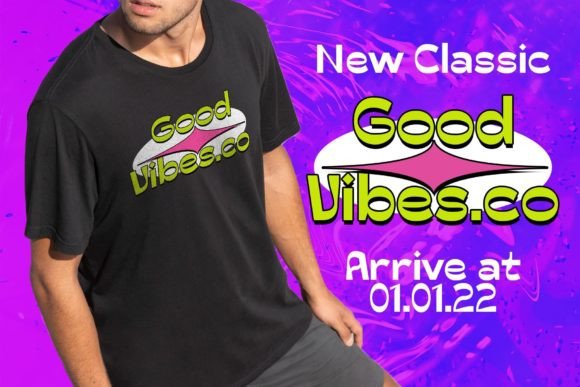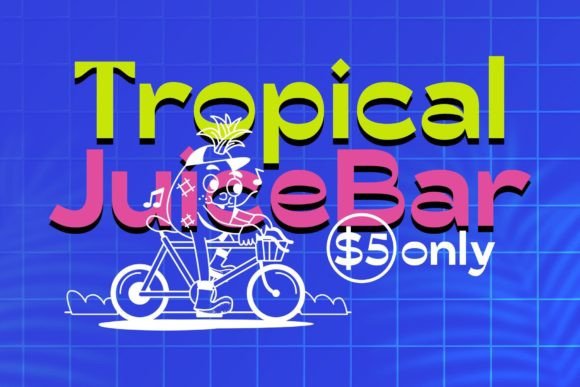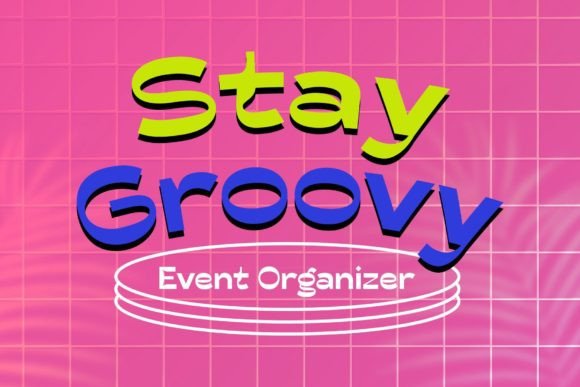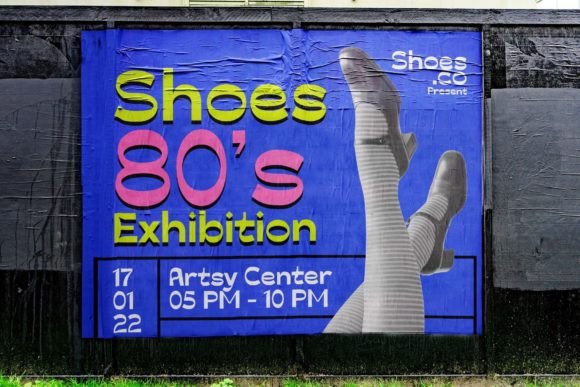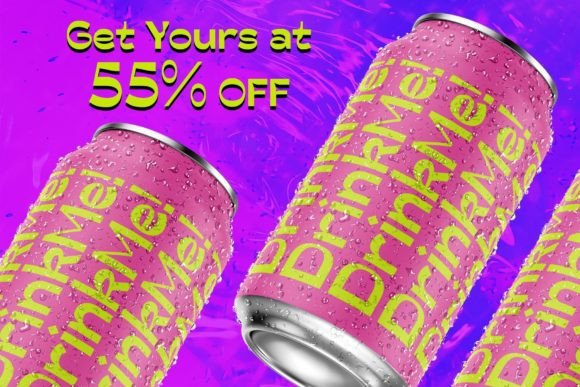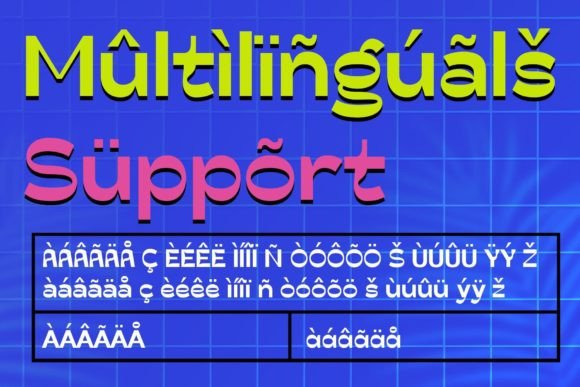
Introducing Float: The Ultimate Sans Serif Psychedelic Font for Designers and Crafters
Are you tired of using the same old fonts in your designs? Look no further! We’re excited to introduce Float, a brand new sans serif psychedelic font that’s inspired by the iconic graphic designs of the 80s. With its bold and eye-catching style, Float is perfect for creating stunning headlines, logos, and graphics that will make your designs stand out from the crowd.
What is Float Font?
Float is a carefully crafted sans serif font that’s designed to bring back the fun and playfulness of 80s graphic design. Its unique and quirky style is characterized by bold lines, vibrant colors, and a dash of psychedelic flair. Whether you’re a designer, crafty DIY enthusiast, or simply someone who loves to create, Float is the perfect font for you.
Key Features of Float Font
- Psychedelic style: Float’s psychedelic style is inspired by the iconic graphic designs of the 80s, making it perfect for creating bold and eye-catching designs.
- Sans serif: Float’s clean and modern sans serif design makes it easy to read and versatile for use in a variety of design applications.
- Bold and vibrant: Float’s bold lines and vibrant colors make it perfect for creating stunning headlines, logos, and graphics that will grab attention.
What Can I Use Float Font For?
Float is a versatile font that can be used for a wide range of design applications, including:
- Graphic design: Float is perfect for creating stunning graphics, logos, and icons for your website, social media, or marketing materials.
- Web design: Use Float to create eye-catching headlines, titles, and buttons for your website or blog.
- Print design: Float is great for creating posters, flyers, brochures, and other print materials that need to make a bold statement.
- Motion graphics: Float’s bold and vibrant style makes it perfect for use in motion graphics, animations, and video projects.
- T-shirts and apparel: Float is a great font for creating custom t-shirts, hoodies, and other apparel that will make you stand out from the crowd.
Why Choose Float Font?
With so many fonts to choose from, why should you choose Float? Here are just a few reasons:
- Unique style: Float’s psychedelic style is unlike any other font on the market, making it perfect for designers and crafters who want to stand out.
- High-quality design: Float is carefully crafted to ensure that it’s both visually appealing and easy to read.